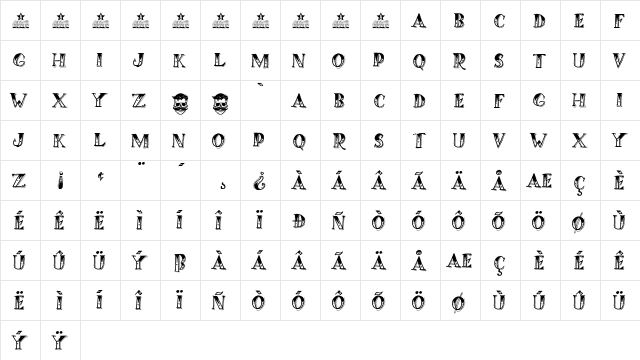
RICH THE BARBER PERSONAL USE Regular
| Foundry | Billy Argel |
| Designer | Billy Argel |
Design Context for RICH THE BARBER PERSONAL USE Typeface
RICH THE BARBER PERSONAL USE is a composed and adaptable typeface that performs quietly and consistently across a wide range of design contexts.